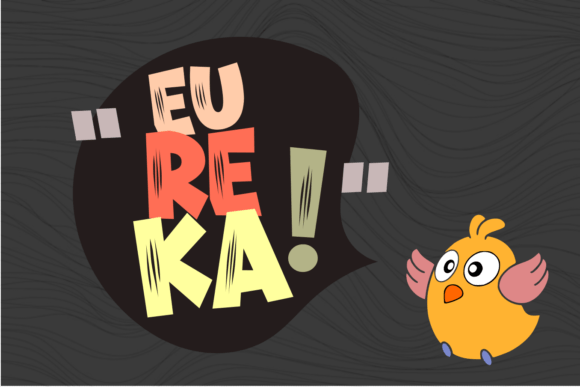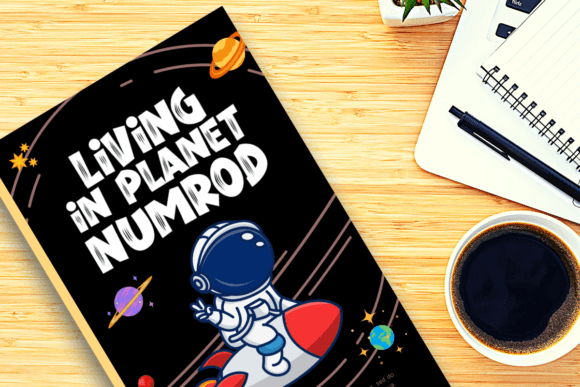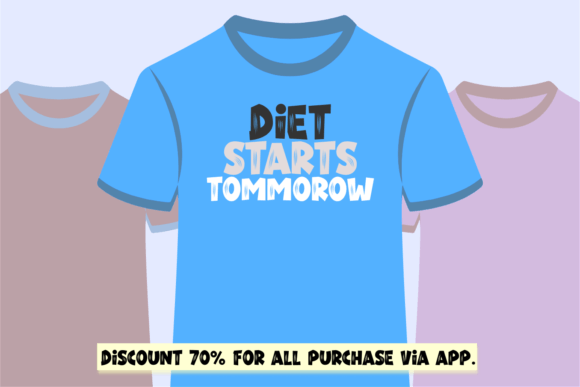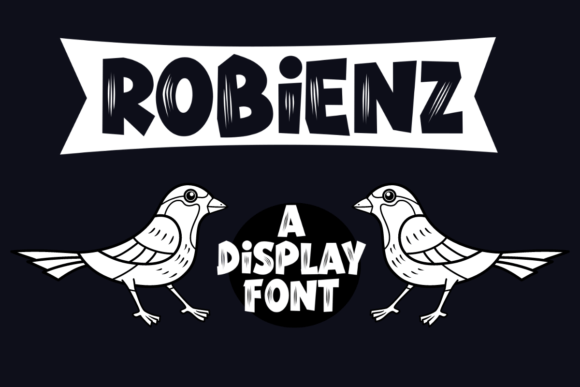
Introduction to Robienz Font
Robienz is a fun and quirky all-caps display font.
Add it to your crafty ideas, and enjoy the results It will look great -on cards, promotional ads, social media posts, product packaging, and others.
Robienz Font offers exceptional quality and versatility, making it a valuable addition to your design toolkit. Whether you’re creating for personal projects or commercial use, Robienz Font delivers professional results.